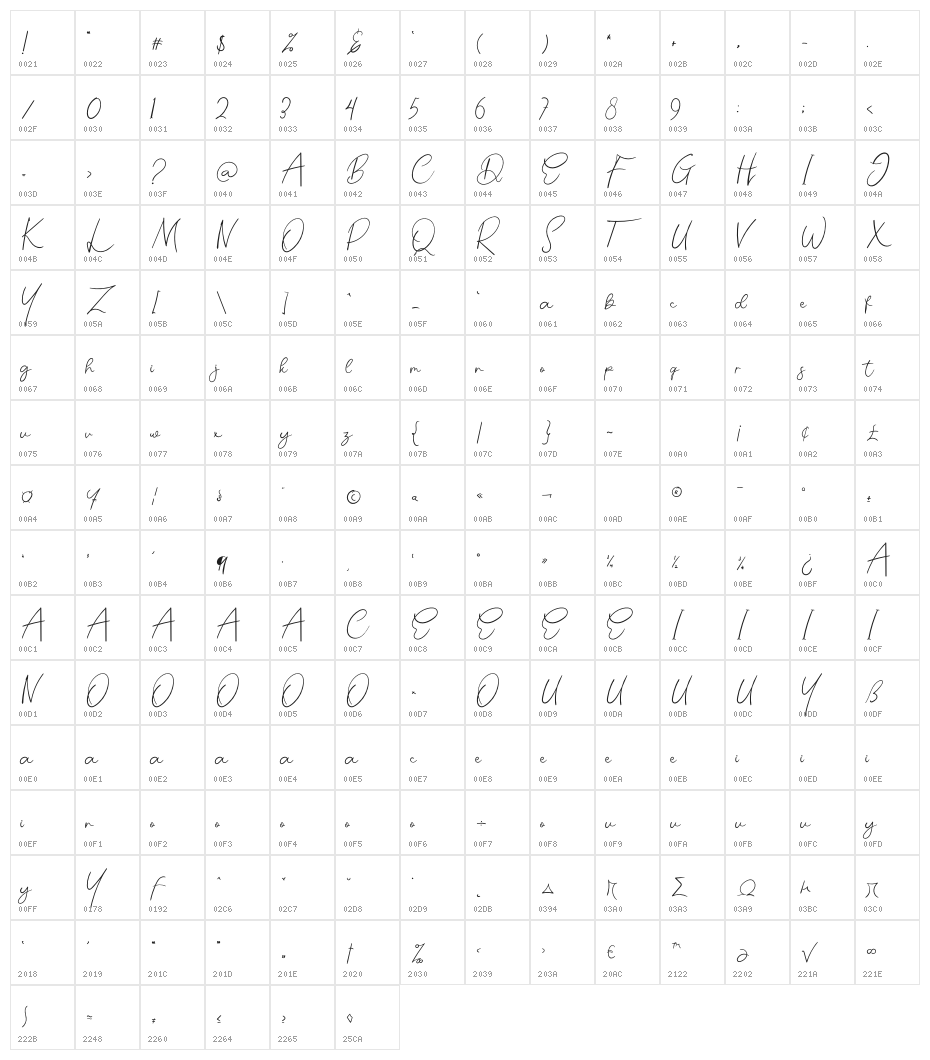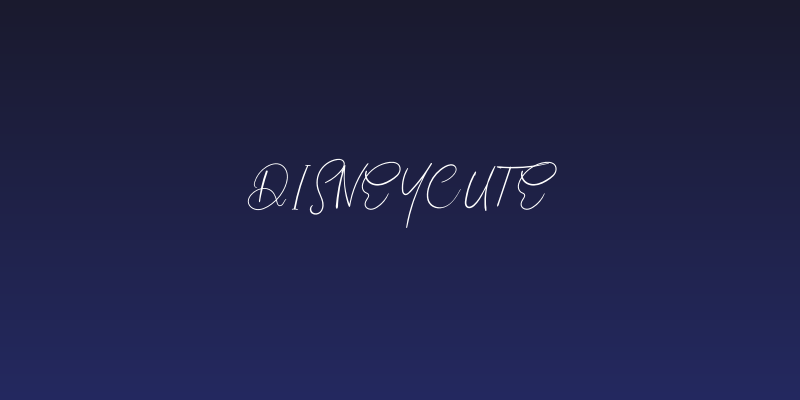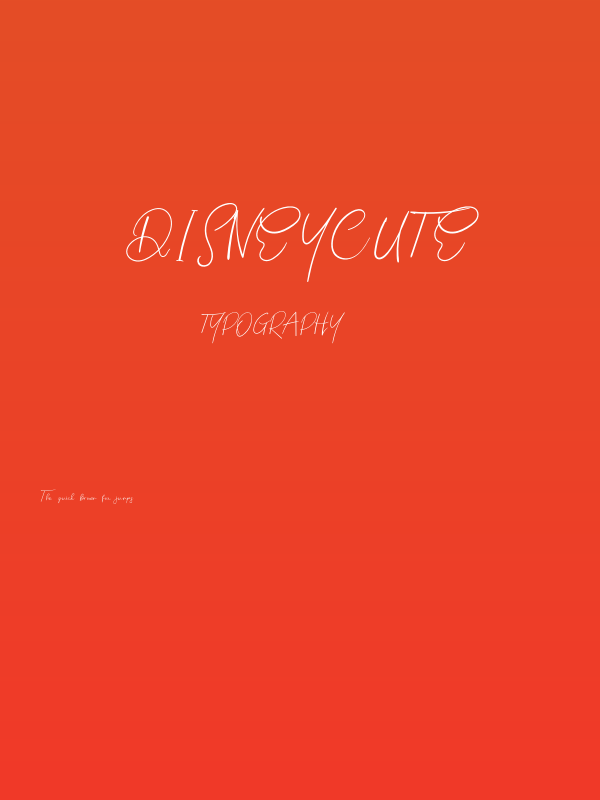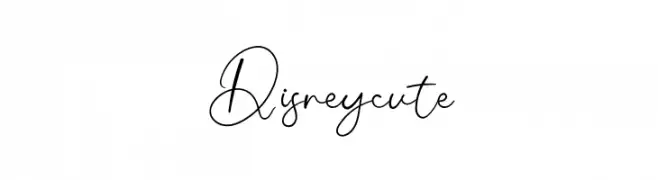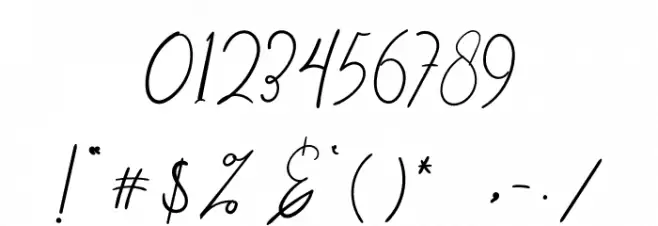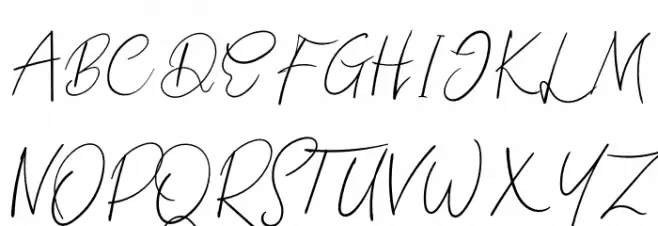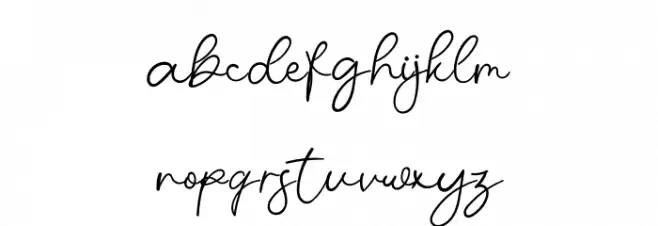
Disneycute Font
Disneycute Description
A playful, whimsical handwritten script with tall, narrow letterforms and fluid, looping strokes. The characters have a casual, friendly appearance with moderate variation in line thickness and generous spacing.
| Overall Style | Playful, Whimsical, Casual |
| Use Case | Logos, Headlines, Invitations, Decorative text |
| Proposed Projects | Children's books, greeting cards, invitations, playful branding, social media graphics. |